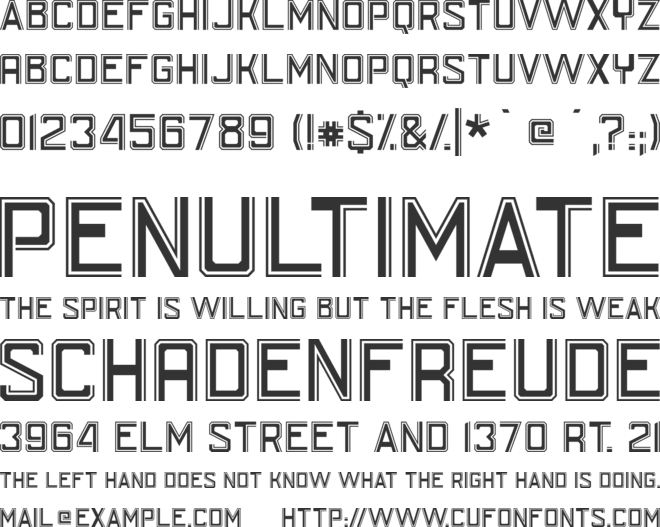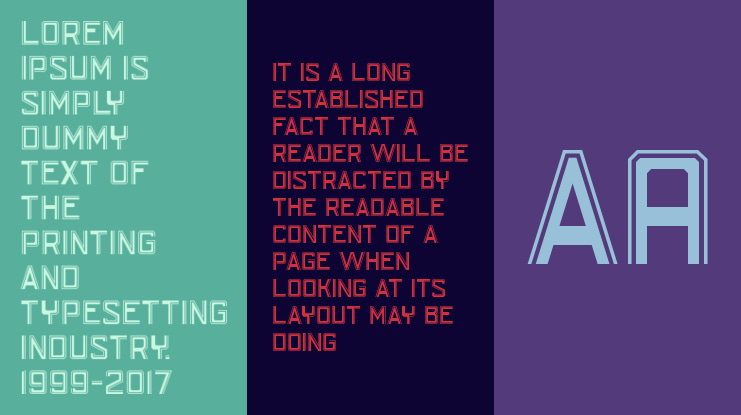
Adam Rucki
Inspired by the Sukhoi SU-30SM 2012-2013 paint scheme side numbers (that can be seen here).
As Irkut Corporation/Russian Air Force used only few numerical digits (namely 0, 1, 2, 4, 5, 6 and 7) I designed the rest of the them, Latin alphabet, Cyrillic and a whole bunch of diacritics.